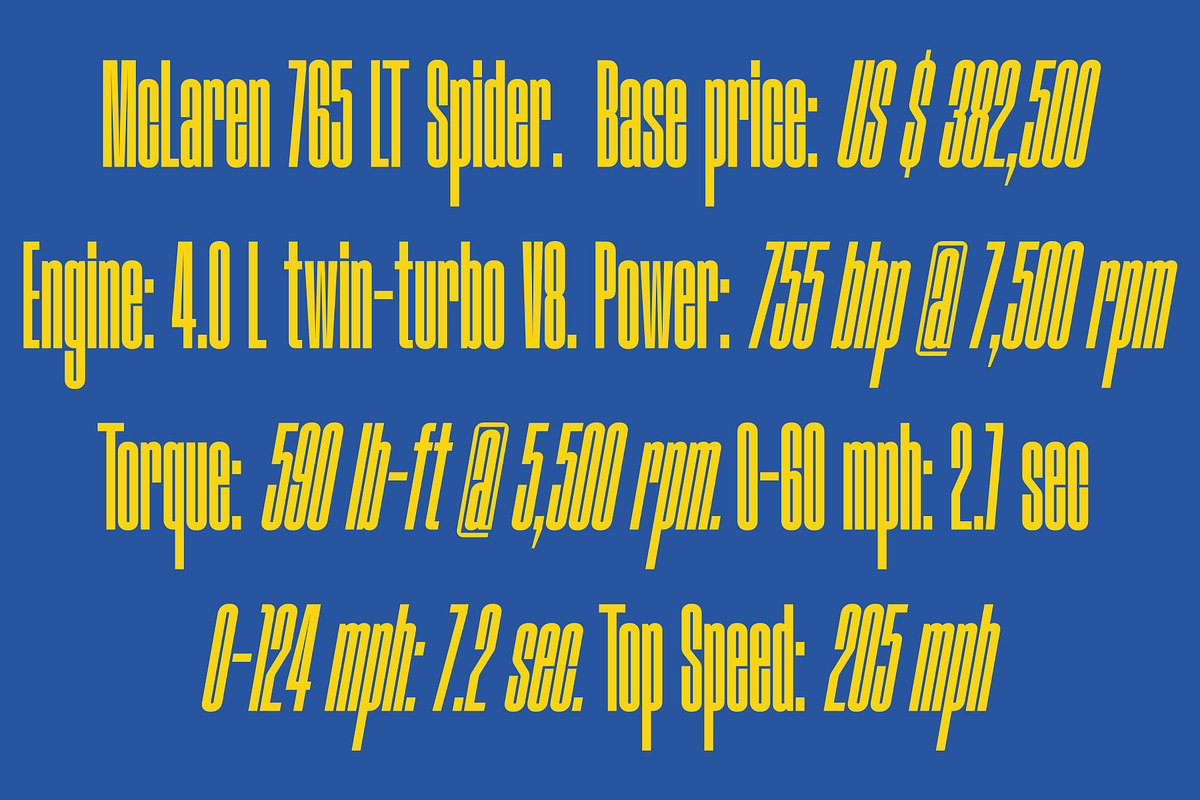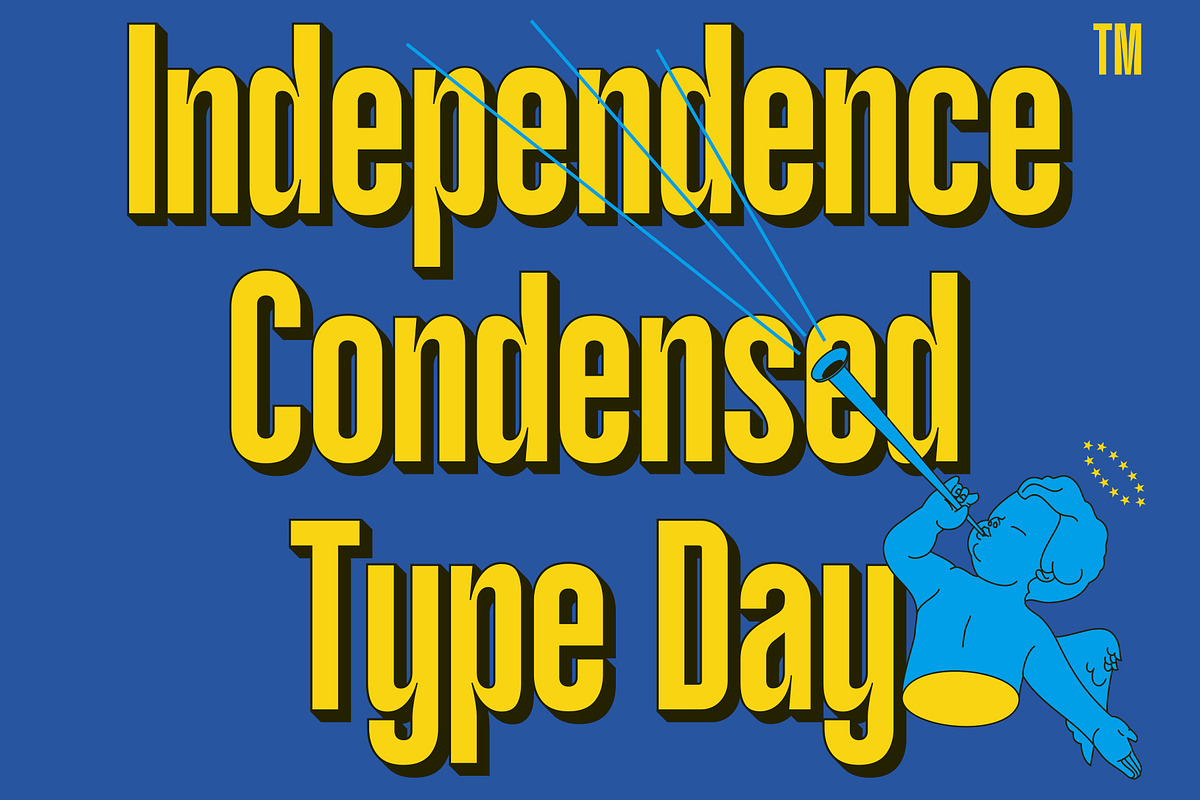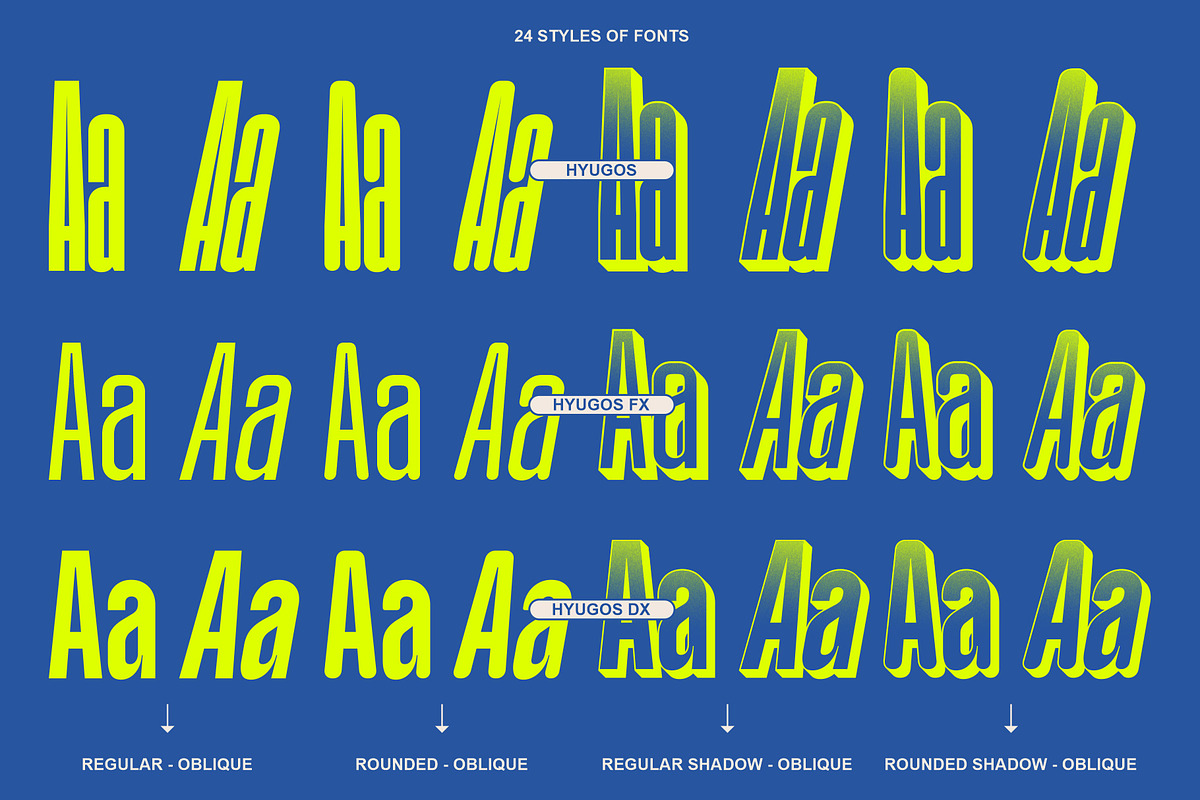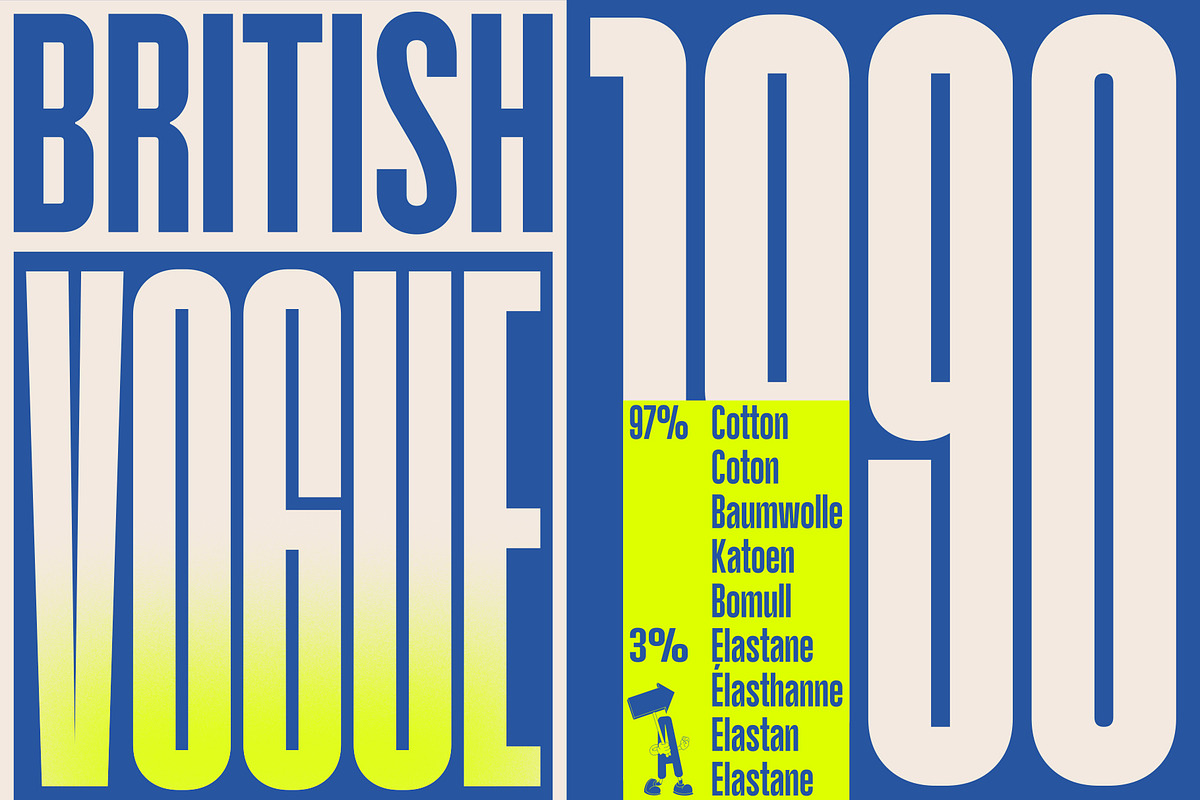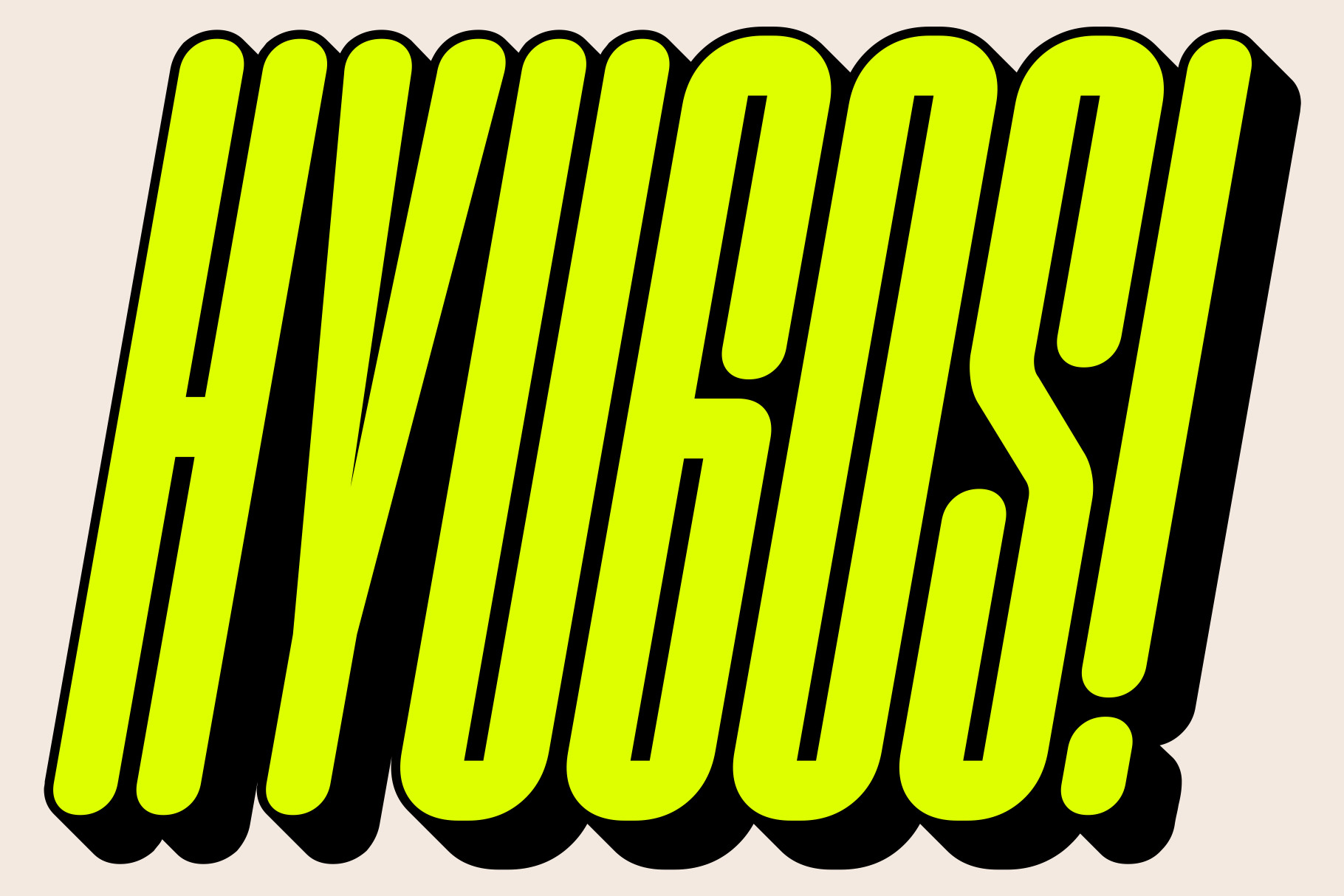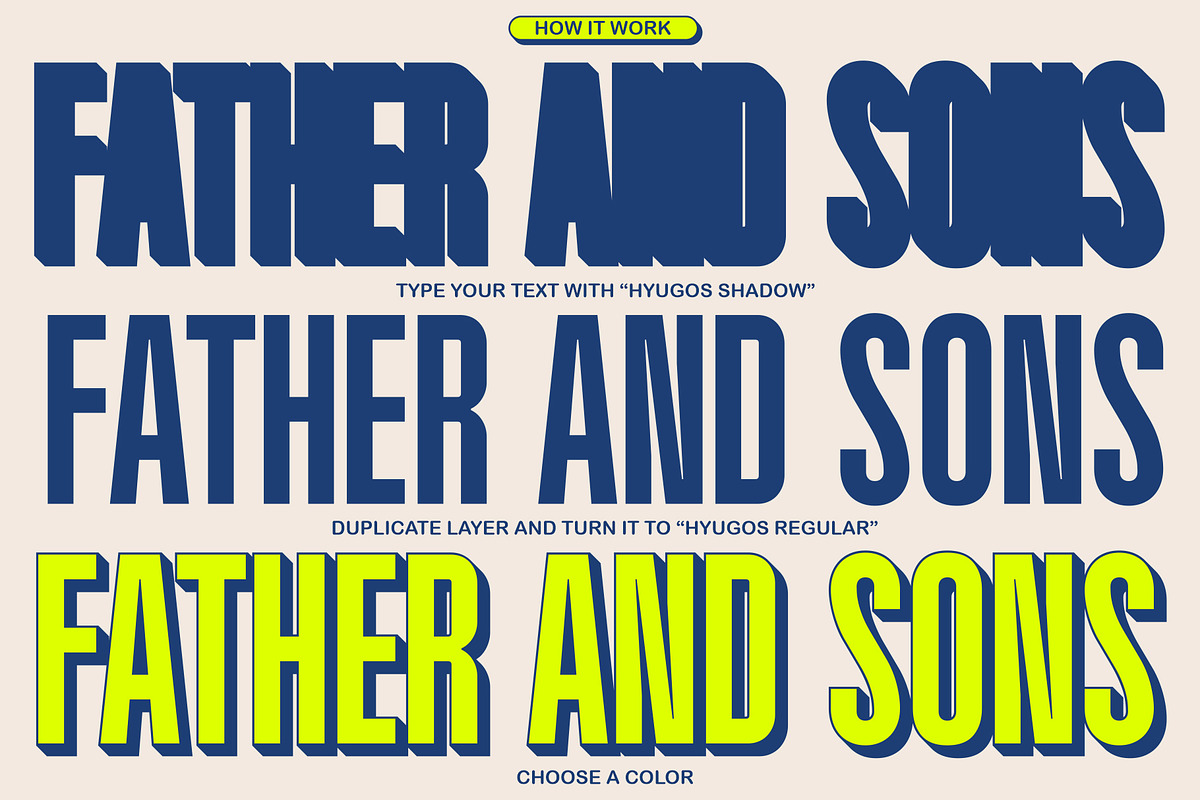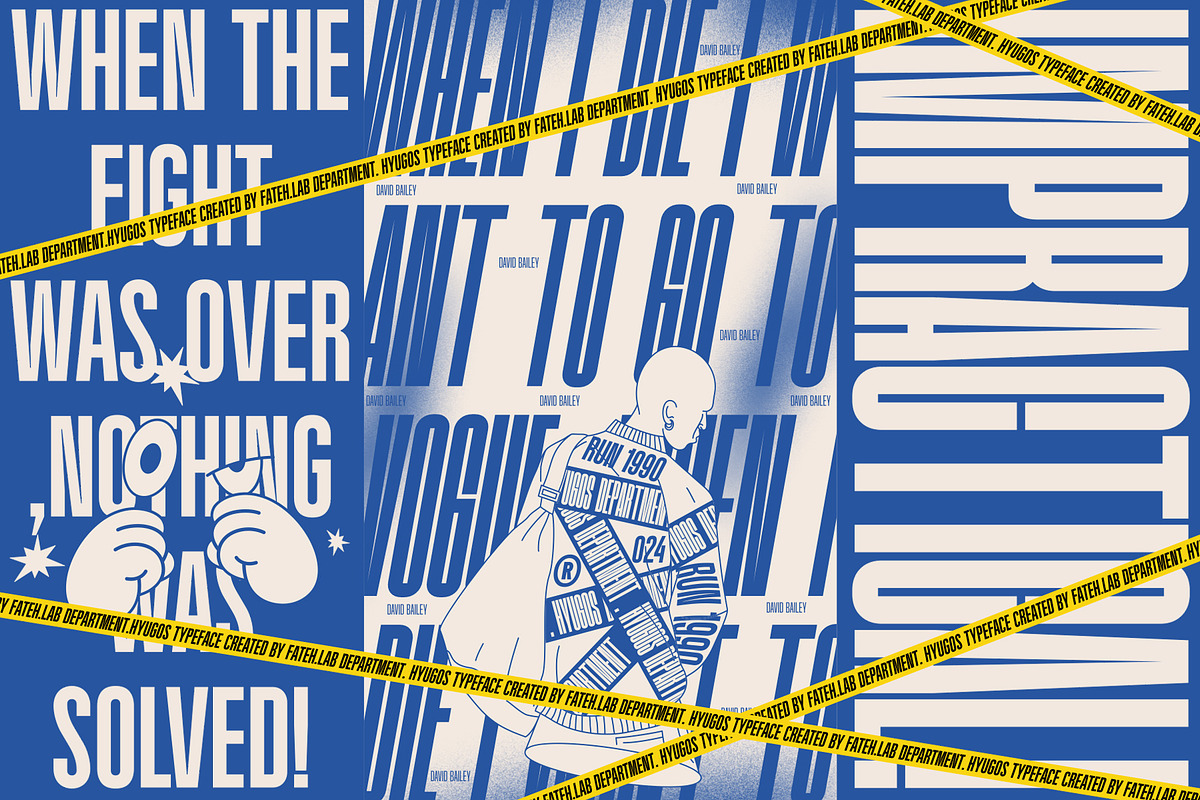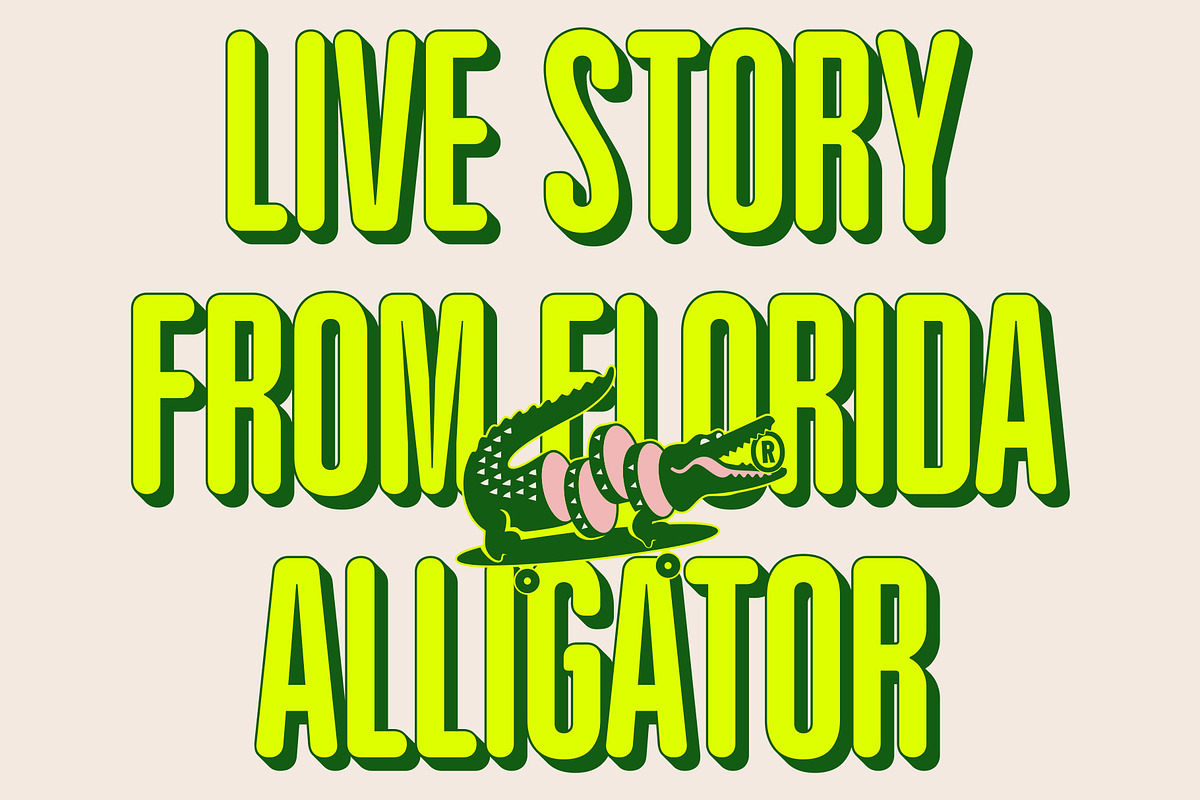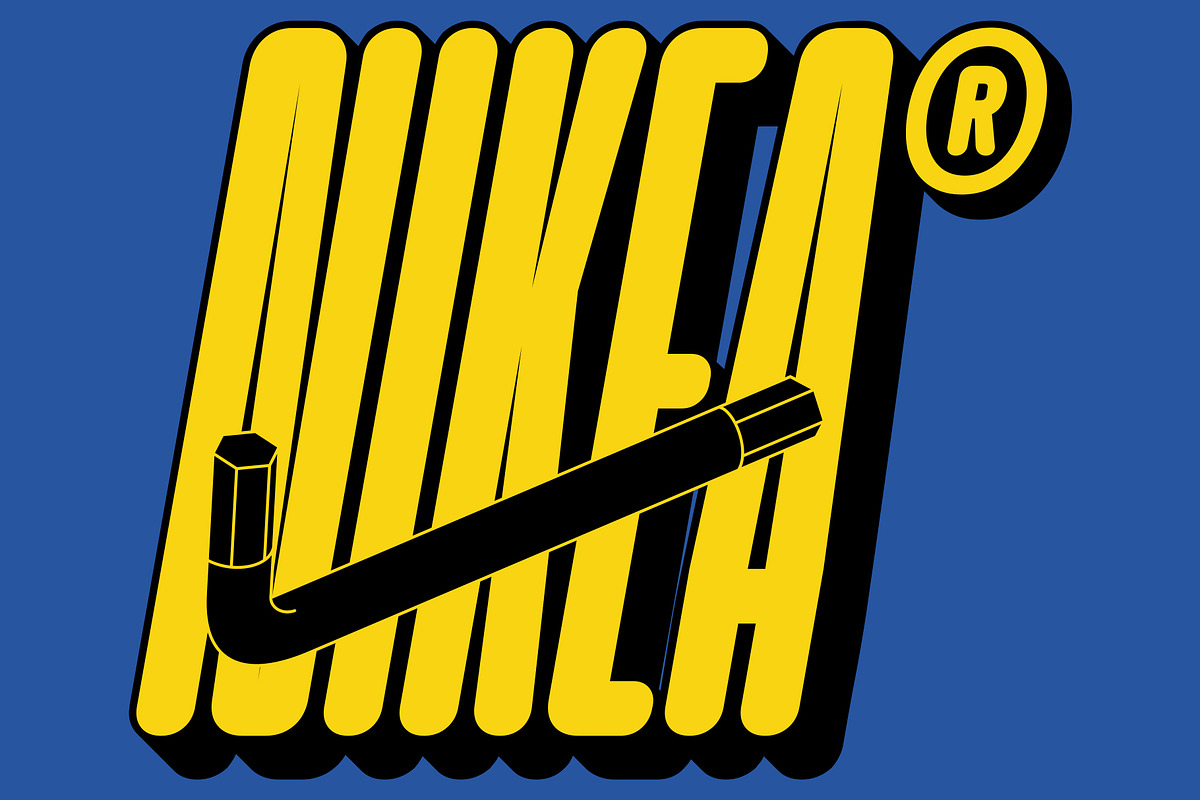
Hyugos | Condensed Shadow Font!!
Hyugos is a condensed type of font that has a different character from the previous condensed font, Hyugos has a strong but soft character, with a cheerful and fresh theme, supported by 24 choices of font types, Hyugos is able to answer your current needs who are designing something great. and what's even more interesting you get a very cool free vector bonus. Its weight is superior in posters, social media, headlines, magazine titles, clothing, large print formats - and wherever you want to see it. Inspired by the design styles that are currently popular, let's make your imagination come true with hyugos.